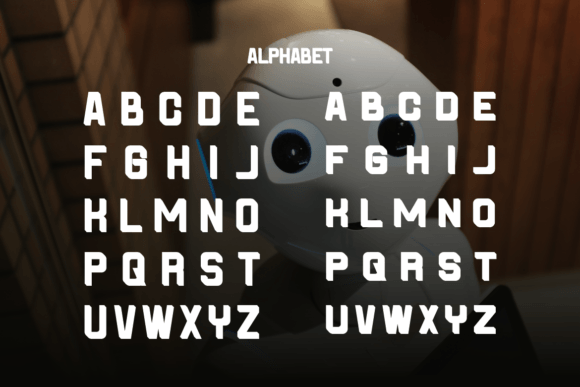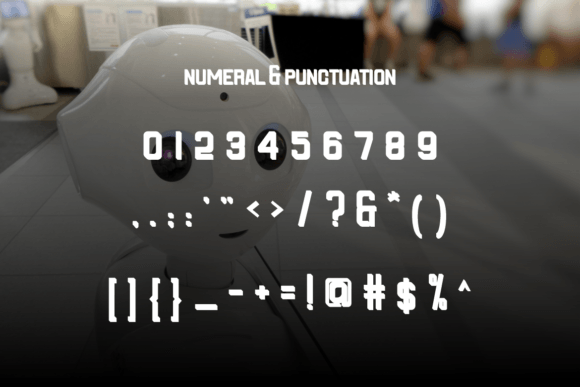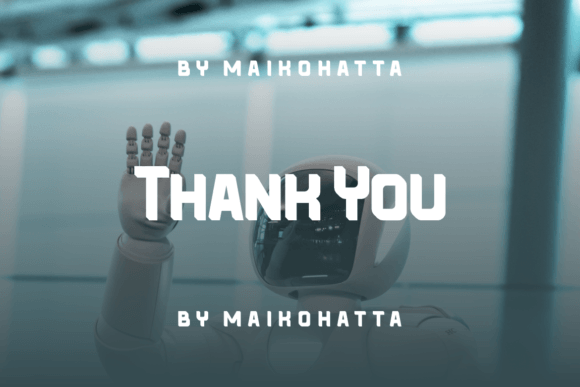
Discover the Power of Digibold Font: Elevate Your Designs with a Cool and Modern Display Font
In the world of typography, fonts play a crucial role in conveying messages, setting tones, and creating visual identities. For designers and crafters, having the right font in their arsenal can make all the difference between a good design and a great one. This is where Digibold Font comes in – a cool and modern display font that can elevate any creation with its unique charm and versatility.
What Makes Digibold Font Stand Out?
Digibold is a sans-serif font that boasts a bold and futuristic look, making it perfect for headlines, titles, and short texts. Its clean lines, geometric shapes, and precise curves give it a modern feel that’s hard to resist. Whether you’re working on a branding project, a website design, or a crafting project, Digibold Font is sure to make a statement.
One of the key features that sets Digibold apart from other fonts is its exceptional legibility. Even at small sizes, the font remains clear and easy to read, making it ideal for use in a variety of applications. Additionally, the font comes in a range of weights, allowing designers to experiment with different styles and create a unique visual hierarchy.
The Benefits of Using Digibold Font
So, why should designers and crafters add Digibold Font to their font library? Here are just a few benefits of using this amazing font:
- Enhance Your Designs: With Digibold Font, you can add a touch of modernity and sophistication to your designs. Its bold and eye-catching style is sure to grab attention and make your creations stand out.
- Versatility: Digibold Font is incredibly versatile, making it suitable for a wide range of projects, from branding and advertising to web design and crafting.
- Ease of Use: The font is easy to use and pairs well with a variety of other fonts, making it simple to create harmonious and visually appealing combinations.
- Time-Saving: With Digibold Font, you can save time and effort in your design process. Its exceptional legibility and range of weights mean you can experiment with different styles without having to spend hours searching for the perfect font.
How to Use Digibold Font in Your Designs
So, how can you make the most of Digibold Font in your designs? Here are a few tips to get you started:
- Headlines and Titles: Use Digibold Font to create bold and eye-catching headlines and titles that grab attention and set the tone for your design.
- Branding and Logo Design: Digibold Font is perfect for creating modern and memorable logos that reflect your brand’s personality and values.
- Web Design: Use Digibold Font to create visually appealing and easy-to-read web pages that engage users and enhance their experience.
- Crafting and DIY Projects: Add a touch of modernity and sophistication to your crafting and DIY projects with Digibold Font, perfect for making signs, labels, and other decorative items.
In conclusion, Digibold Font is a cool and modern display font that’s sure to become a valuable asset in any designer’s or crafter’s font library. Its unique blend of style, versatility, and legibility makes it perfect for a wide range of projects, from branding and advertising to web design and crafting. Whether you’re looking to enhance your designs, save time, or simply try something new, Digibold Font is an excellent choice.